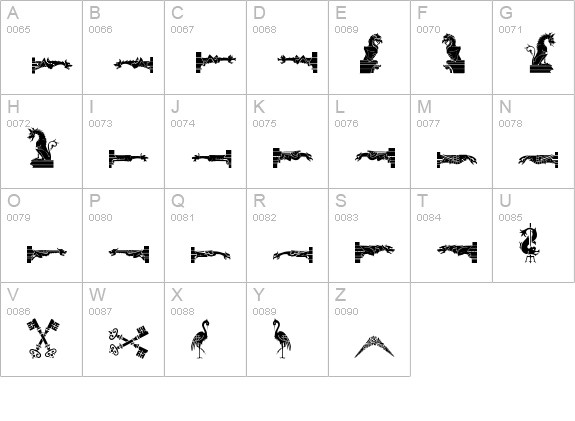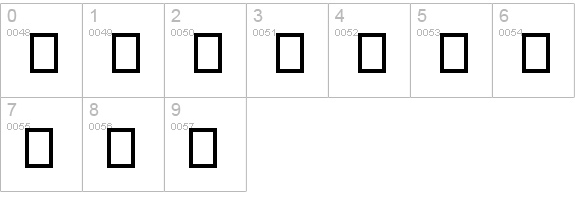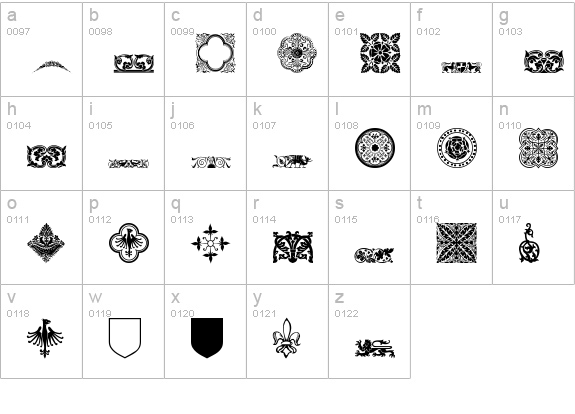
Medieval Dingbats Font Details
Medieval Dingbats font is a captivating and intricate collection of symbols and icons inspired by the medieval era. This unique font features elegantly designed dingbats that evoke the essence of medieval times, making it perfect for projects that require a touch of historical charm. The Medieval Dingbats font is freely available to download at FontsMarket.com, allowing you to easily incorporate these enchanting symbols into your designs. Whether you're working on a project that calls for a touch of nostalgia or simply looking to add a touch of whimsy to your work, the Medieval Dingbats font is sure to inspire creativity and delight. Download this exquisite font today and bring a touch of medieval magic to your designs!